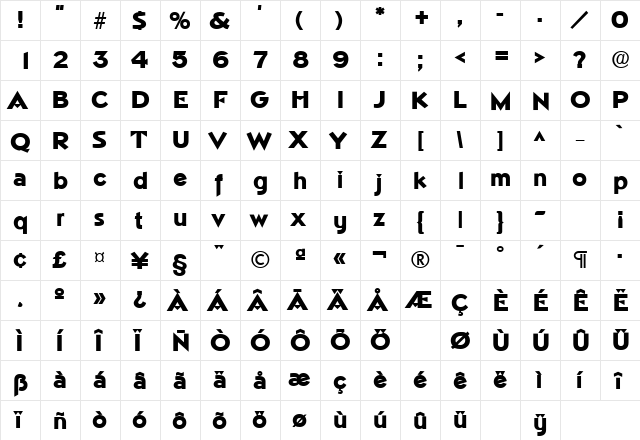
NapoliLH Bold
Design Context for NapoliLH Typeface
NapoliLH offers clean, dependable letterforms without strong stylistic allegiance, making it a practical choice for designers who need flexibility. Its bold stroke weight gives it real presence on the page.
Pro Tip: Use NapoliLH in both headline and body roles to test its range before committing to a single application.